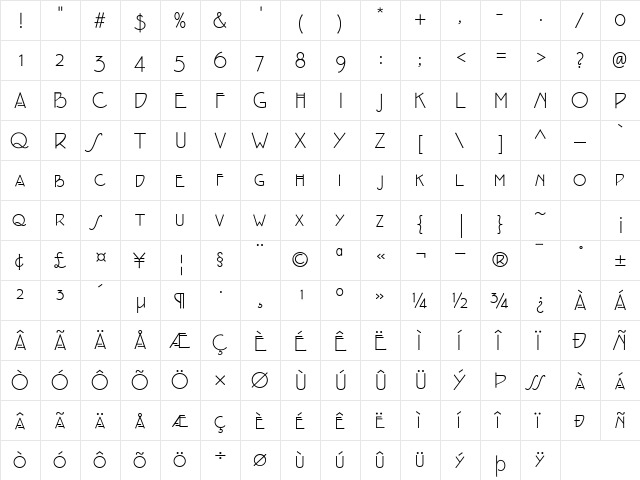
EaglefeatherSmallCaps Light
EaglefeatherSmallCaps is a composed and adaptable typeface that performs quietly and consistently across a wide range of design contexts. The delicate stroke weight brings airiness and refinement to layouts.